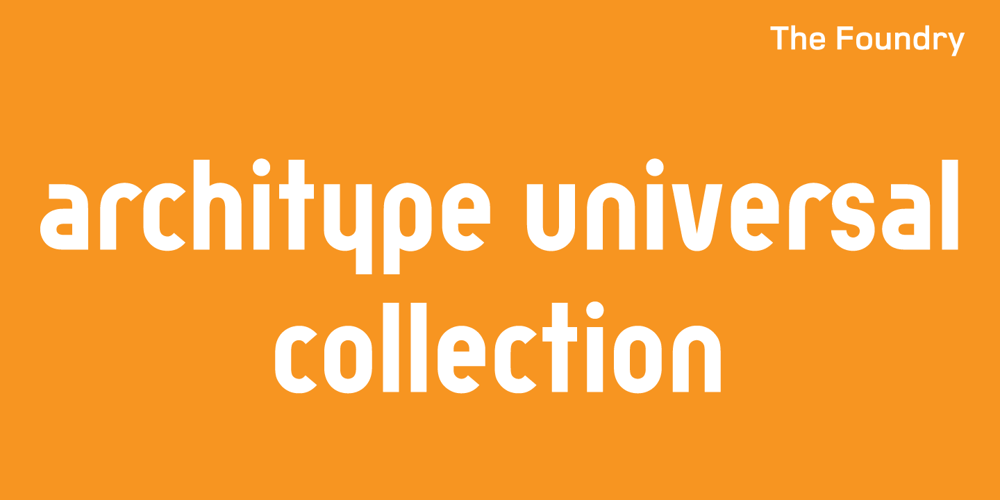
Architype Bayer
Architype Bayer Font Family was designed by published by The Foundry. Architype Bayer contains 1 styles and family package options. Architype Universal is a collection of avant-garde typefaces deriving mainly from the work of artists/designers of the inter-war years, whose ideals underpin the design philosophies of the modernist movement in Europe. Their ‘universal’, ‘single alphabet’ theory limits the character sets. Architype Bayer was drawn from Bauhaus Archiv sketches for a minimal sans typeface that was created in 1925 by Herbert Bayer, based on his single-alphabet student thesis. This ‘universal’ alphabet was designed for exclusive Bauhaus use, but never cut as a typeface.